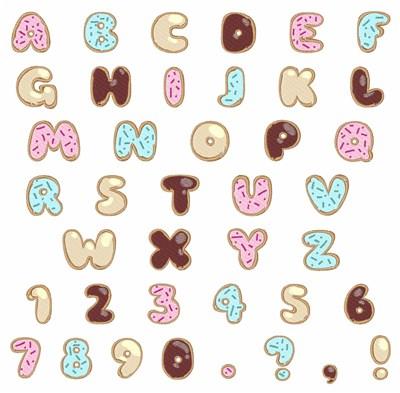
Embroidery Patterns is happy to present Sugar Font machine embroidery font which has Playful decorative machine embroidery font inspired by sugary treats with colorful icing and sprinkles, perfect for fun designs on children's clothing or party decor. Available in PES, DST, and 11 other formats. included. If you would like to view more embroidery fonts and alphabets please search our embroidery fonts page.